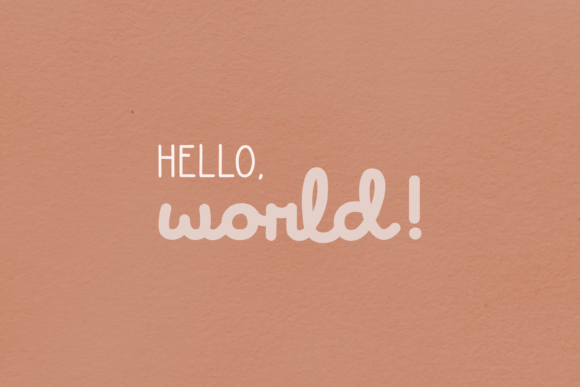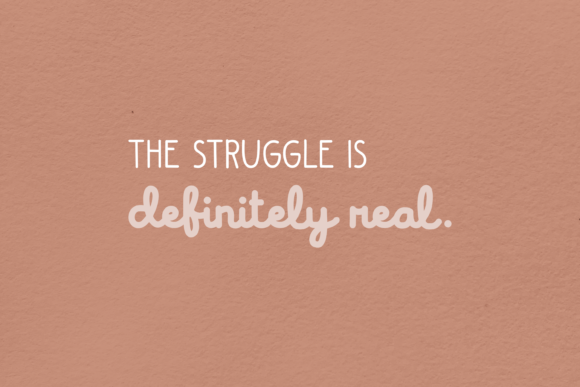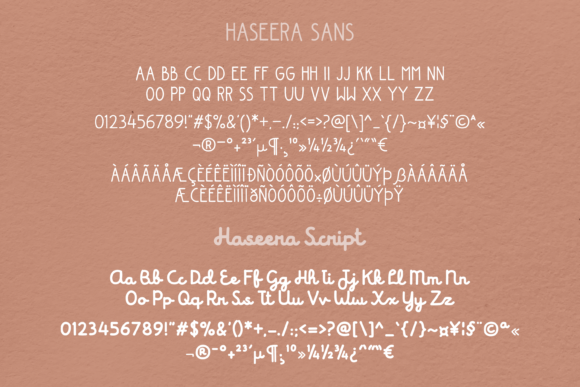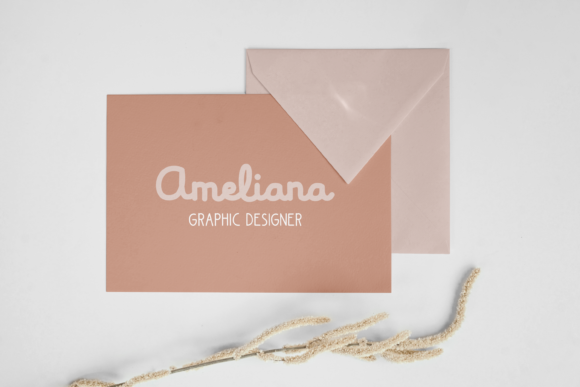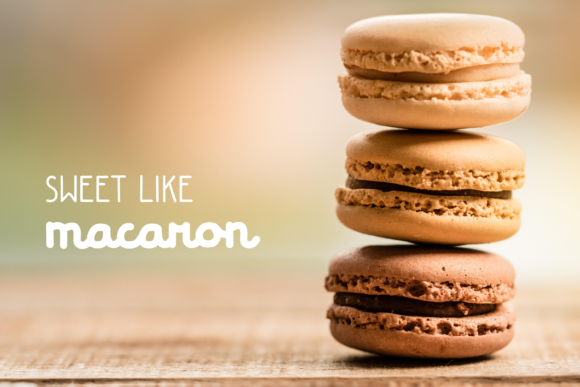
Haseera Font: A Simple yet Sweet Font Duo for Designers and Crafters
In the world of typography, fonts play a crucial role in conveying the tone and personality of a design. For designers and crafters looking for a unique and eye-catching font, Haseera Font is an excellent choice. This font duo consists of a bold monoline script font and a thin all-caps sans serif font that look great together or apart. In this article, we’ll dive into the features and benefits of Haseera Font and explore its uses in various design projects.
What is Haseera Font?
Haseera Font is a font duo that combines two distinct styles: a bold monoline script font and a thin all-caps sans serif font. The bold monoline script font features smooth, flowing lines that give it a modern and elegant look. On the other hand, the thin all-caps sans serif font has a clean and minimalist aesthetic that provides a beautiful contrast to the script font. Together, they create a unique and visually appealing combination that’s perfect for a wide range of design projects.
Key Features of Haseera Font
- Bold Monoline Script Font: The bold monoline script font features smooth, flowing lines that give it a modern and elegant look. It’s perfect for adding a touch of sophistication to any design project.
- Thin All-Caps Sans Serif Font: The thin all-caps sans serif font has a clean and minimalist aesthetic that provides a beautiful contrast to the script font. It’s ideal for adding a touch of simplicity and elegance to any design.
- Versatile: Haseera Font is versatile and can be used in various design projects, including posters, printed quotes, digital designs, and more.
- Cute and Eye-Catching: The font duo has a cute and eye-catching look that’s perfect for designers and crafters who want to add a touch of personality to their designs.
Uses of Haseera Font
Haseera Font is perfect for a wide range of design projects, including:
- Posters: The bold monoline script font and thin all-caps sans serif font look great together on posters, making them perfect for advertising, promotion, or informational purposes.
- Printed Quotes: The font duo is ideal for printed quotes, adding a touch of elegance and sophistication to inspirational or motivational quotes.
- Digital Designs: Haseera Font can be used in digital designs, such as social media graphics, blog posts, or website headers, to add a touch of personality and style.
- Crafting Projects: The font duo is also perfect for crafting projects, such as handmade cards, scrapbooking, or DIY home decor.
Benefits of Using Haseera Font
Using Haseera Font in your design projects offers several benefits, including:
- Unique and Eye-Catching: The font duo has a unique and eye-catching look that sets it apart from other fonts.
- Versatile: Haseera Font can be used in various design projects, making it a great addition to any designer’s or crafter’s toolkit.
- Elegant and Sophisticated: The font duo adds a touch of elegance and sophistication to any design project, making it perfect for designers and crafters who want to create high-quality designs.
- Easy to Read: The thin all-caps sans serif font is easy to read, making it perfect for designs that require a clear and concise message.
In conclusion, Haseera Font is a simple yet sweet font duo that’s perfect for designers and crafters looking for a unique and eye-catching font. With its bold monoline script font and thin all-caps sans serif font, Haseera Font offers a versatile and elegant solution for a wide range of design projects. Whether you’re creating posters, printed quotes, digital designs, or crafting projects, Haseera Font is an excellent choice. So why not give it a try and add a touch of personality and style to your designs?